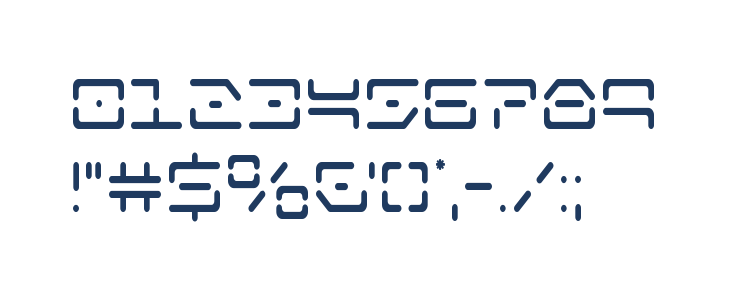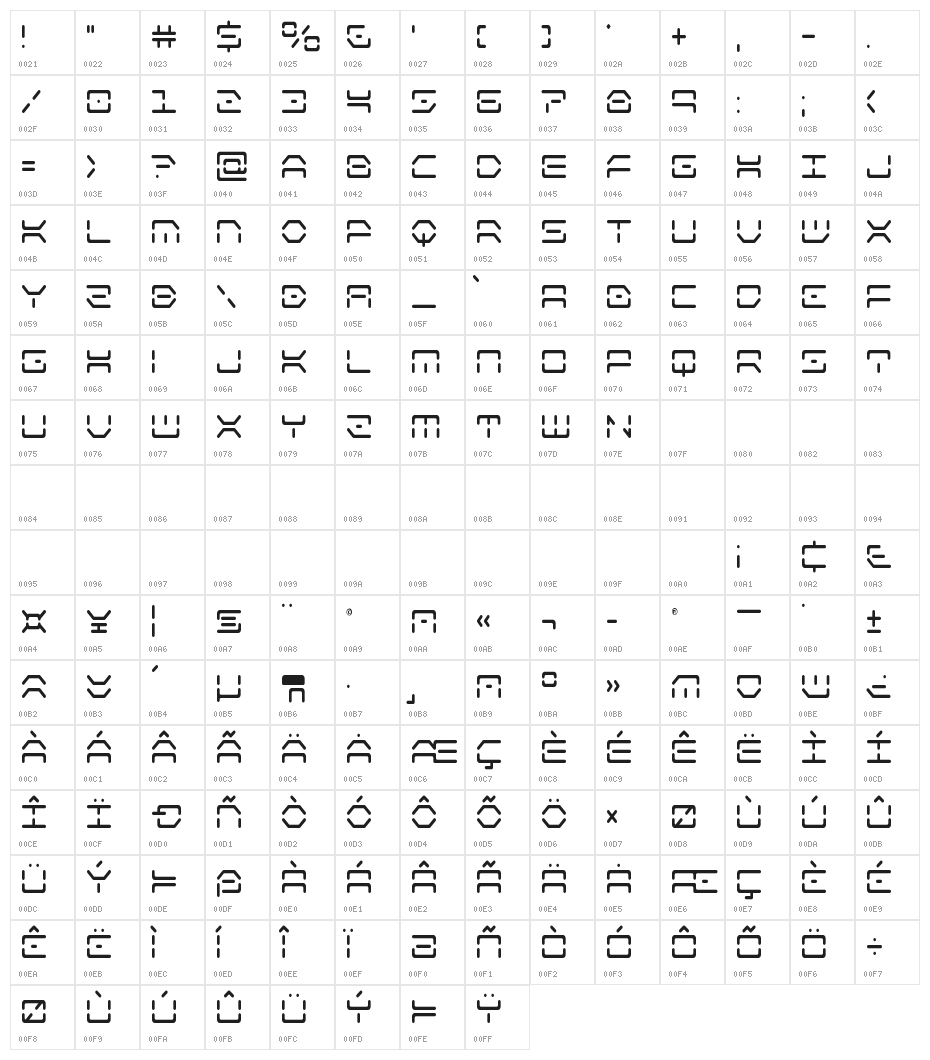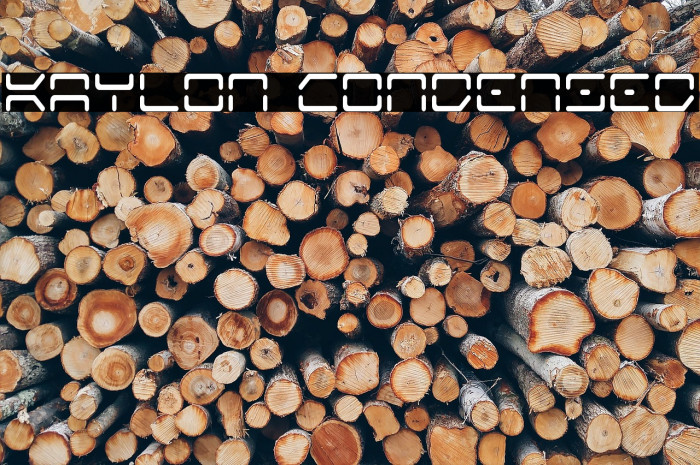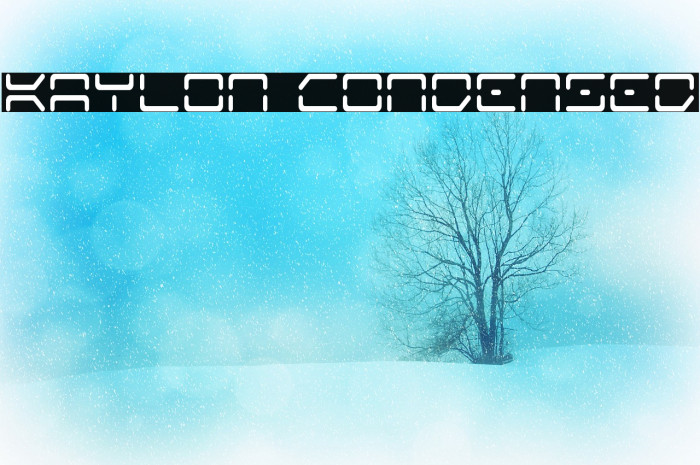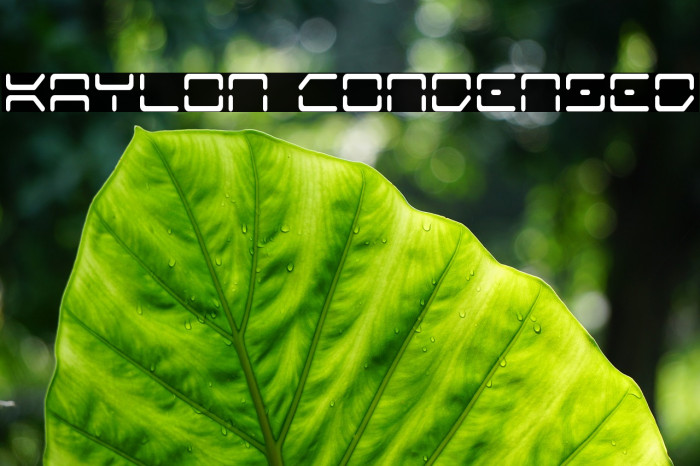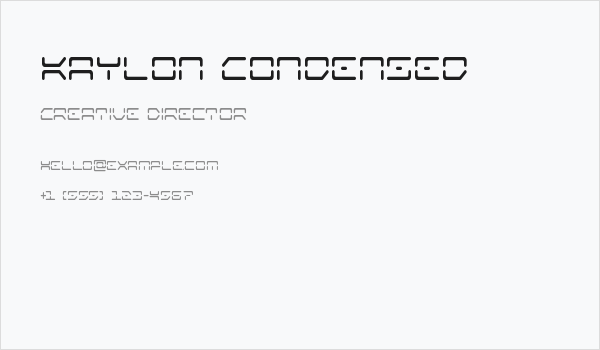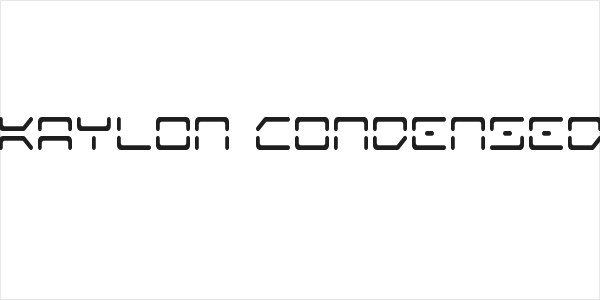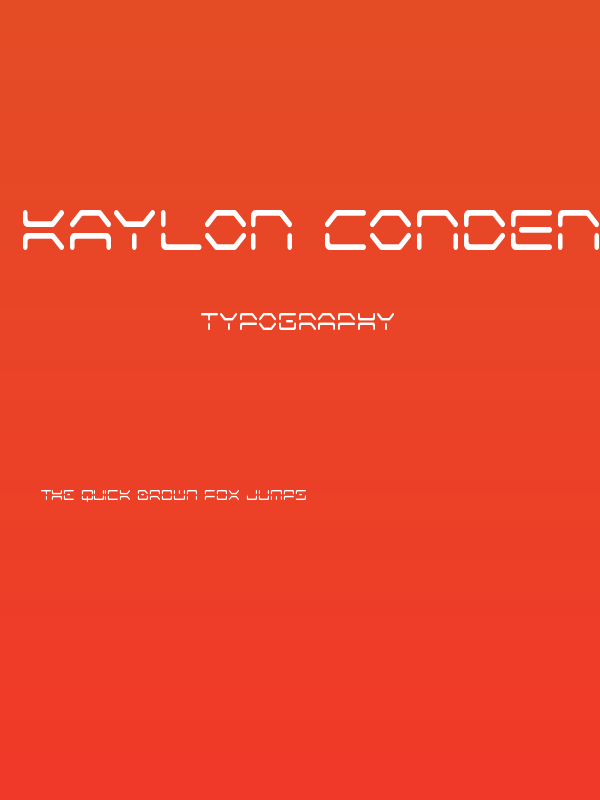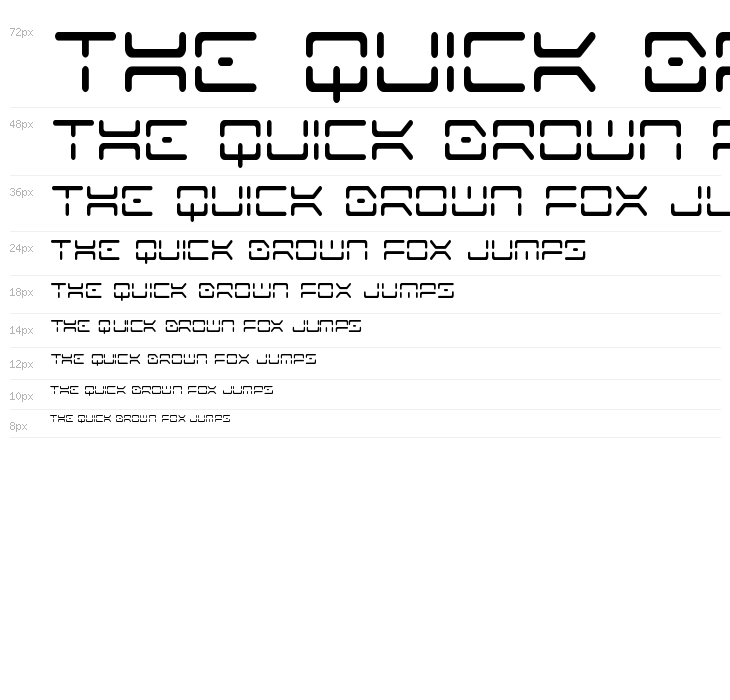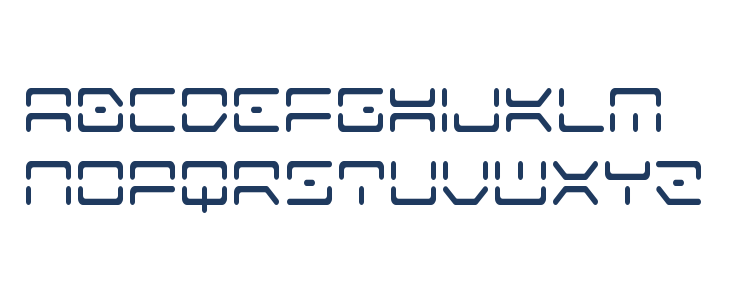
Kaylon Condensed Font
Kaylon Condensed Description
This font features a futuristic, geometric design with a condensed structure. The characters are formed with a series of straight lines and rounded corners, creating a digital, tech-inspired appearance. The uniform stroke width and the absence of serifs give it a clean and modern look. The uppercase and lowercase letters maintain a consistent style, while the numbers and special characters complement the overall aesthetic. Its unique design makes it suitable for projects that require a contemporary and innovative feel.
| Proposed Projects | Ideal for technology branding, digital interfaces, video game titles, and sci-fi themed projects. |